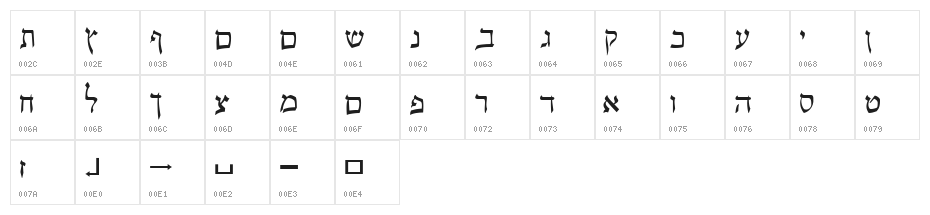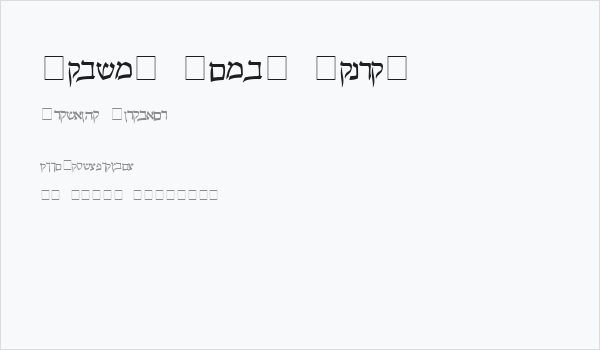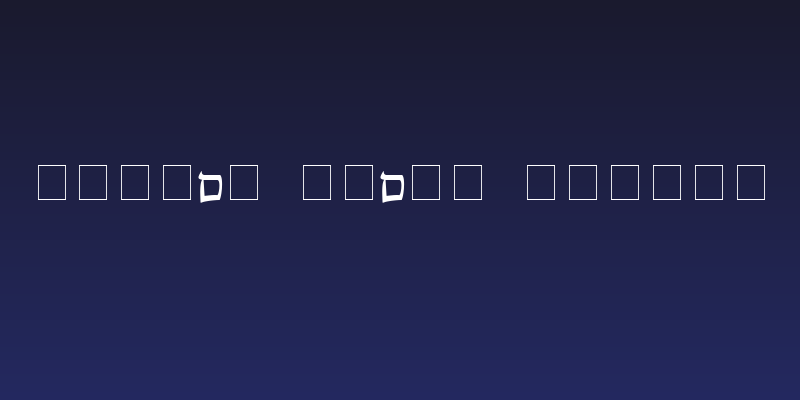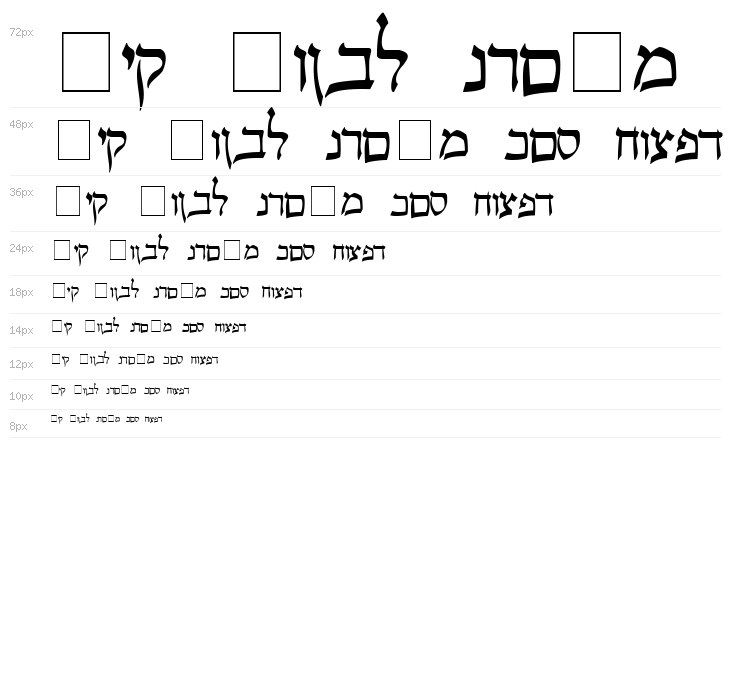
Pecan_ Sonc_ Hebrew Font
Pecan_ Sonc_ Hebrew Description
This font features a traditional Hebrew script style with a strong emphasis on calligraphic elements. The characters are bold and have a distinct, angular appearance, reminiscent of historical Hebrew manuscripts. The strokes are thick and consistent, providing a sense of stability and formality. The font maintains a classic aesthetic, making it suitable for projects that require a traditional or cultural touch. The spacing between characters is balanced, allowing for clear readability while maintaining the artistic flair of the script.
| Use Case | Headlines, Logos, Cultural texts |
| Proposed Projects | Ideal for cultural publications, religious texts, invitations, and branding that requires a traditional Hebrew aesthetic. |